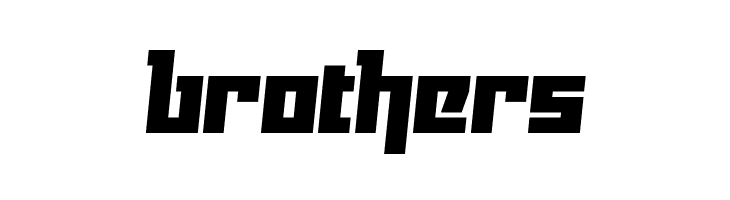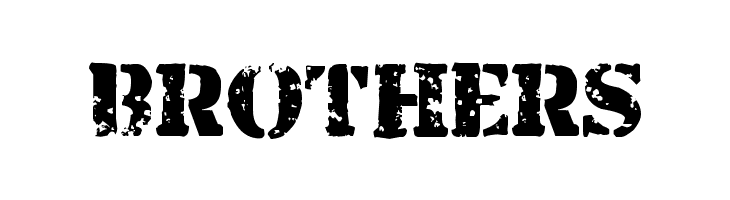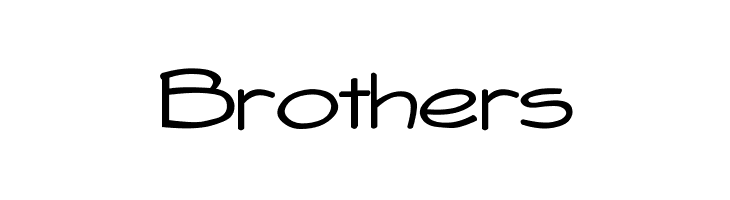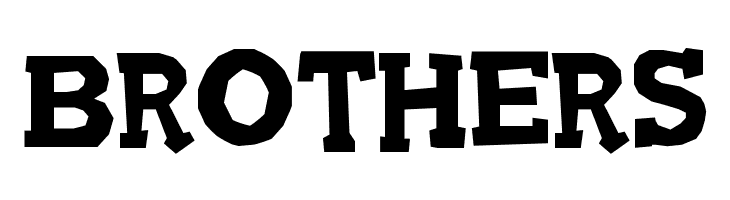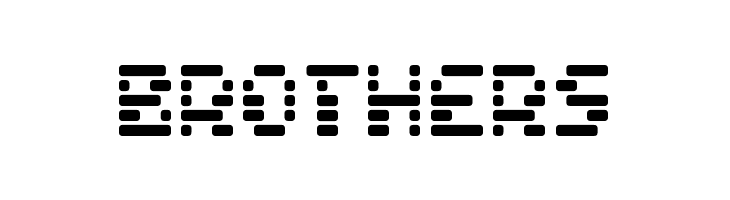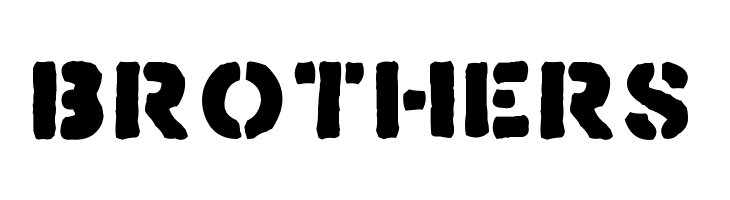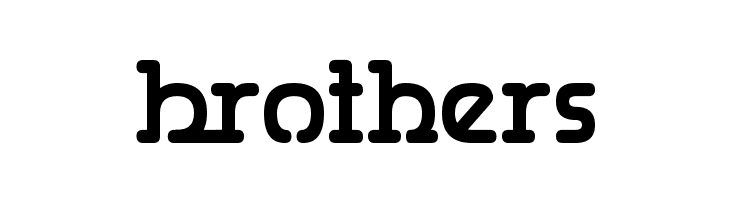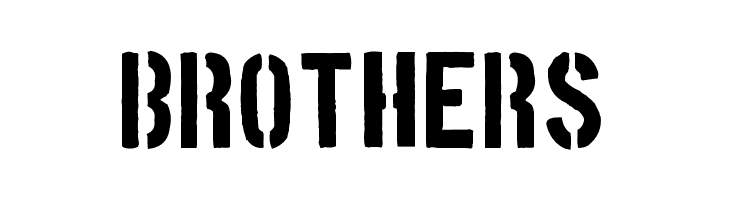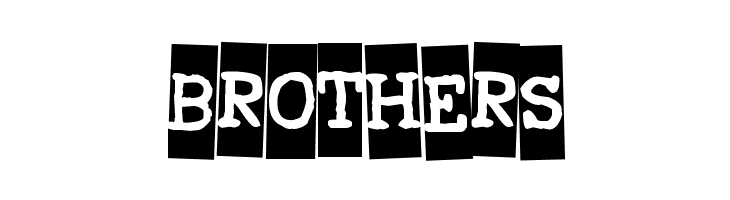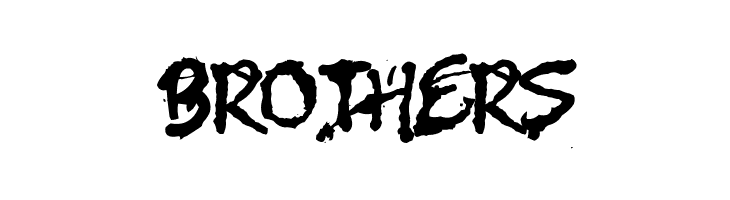
A bold, angular font with a dynamic, geometric design.
A bold, ornate Blackletter-style font with intricate details and a gothic aesthetic.
A bold, distressed font with a rugged, weathered appearance.
A futuristic, dot-based font with a tech-inspired, geometric design.
A distressed, vintage typewriter-style font with a grunge aesthetic.
A bold, stencil-style font with an industrial and rugged appearance.
A playful, hand-drawn font with thick, uneven strokes and a whimsical style.
A bold, expressive font with a graffiti-like, hand-painted style.
A bold, industrial font with a distinctive shadow effect for a three-dimensional look.
A bold, rounded font with a playful and modern style.
A bold, playful script font with smooth, flowing letterforms and rounded edges.
A bold, condensed, and slanted font ideal for dynamic designs.
A bold, geometric sans-serif font with a modern and professional appearance.
A bold, angular font with a geometric and impactful style.
A bold, distressed font with a rugged, edgy appearance.
A distressed, grungy font with chaotic, worn letterforms.
A futuristic, geometric font with rounded edges and uniform strokes.
A vintage, typewriter-inspired font with a distressed, organic look.
A bold, geometric font with a modern and dynamic style.
A bold, geometric font with a futuristic and cohesive design.
A bold, brush-style font with dynamic, textured strokes.